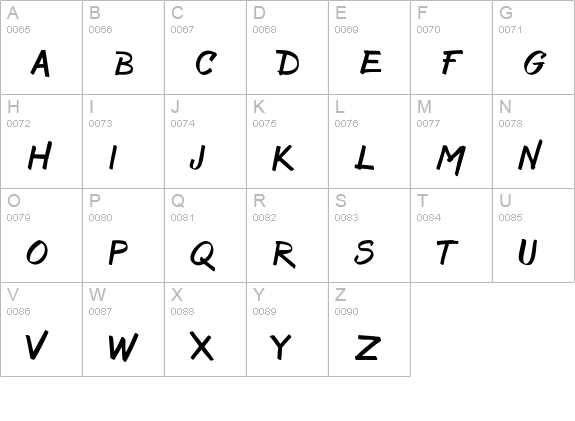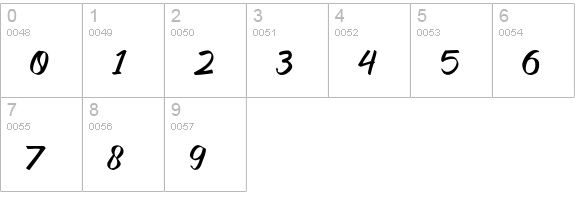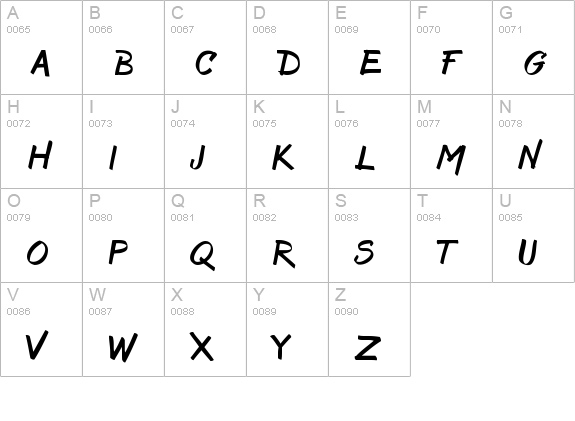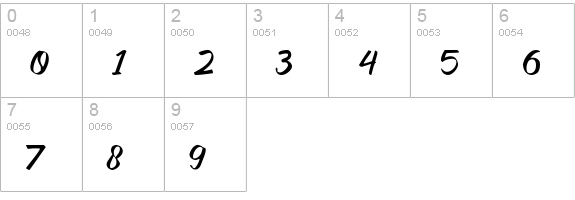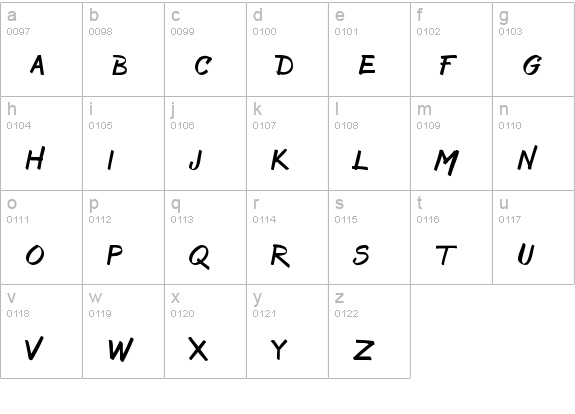
Bruss font is a stunning typeface that exudes elegance and sophistication. With its clean lines and modern yet timeless design, this font is perfect for a wide range of creative projects. Whether you're designing a logo, creating a stylish invitation, or crafting a visually appealing website, Bruss font is sure to make a lasting impression. What sets Bruss font apart is not just its striking aesthetic, but also its versatility. This font can effortlessly adapt to various design styles, from minimalist to bold and impactful. Its sleek and legible letterforms ensure that your message is conveyed with clarity and professionalism. And the best part? Bruss font is completely free! That's right, this extraordinary font is freely available to download at FontsMarket.com. Now, you can elevate your design projects without breaking the bank. Simply head over to FontsMarket.com, browse the extensive collection of fonts, and discover the beauty of Bruss font for yourself. So why wait? Embrace the power of Bruss font and infuse your designs with sophistication and style. Whether you're a graphic designer, a creative professional, or simply someone with an eye for aesthetics, Bruss font is a must-have in your font library. Download it for free at FontsMarket.com and watch your designs come to life with this exquisite typeface.